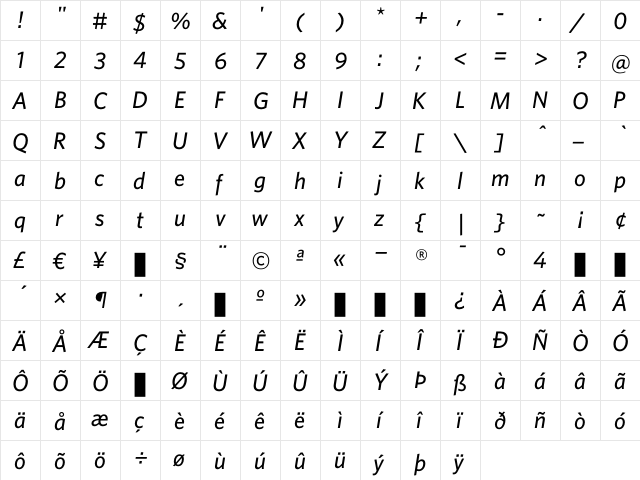
Whitney MediumItalic
Design Context for Whitney Typeface
Whitney takes a measured approach to typography — its balanced proportions and neutral character make it a reliable workhorse for both digital and print work. Its italic angle brings a sense of urgency and motion to the letterforms.
Pro Tip: Use Whitney for emphasis, pull quotes, and subheadings where its slanted energy can add rhythm to the layout.